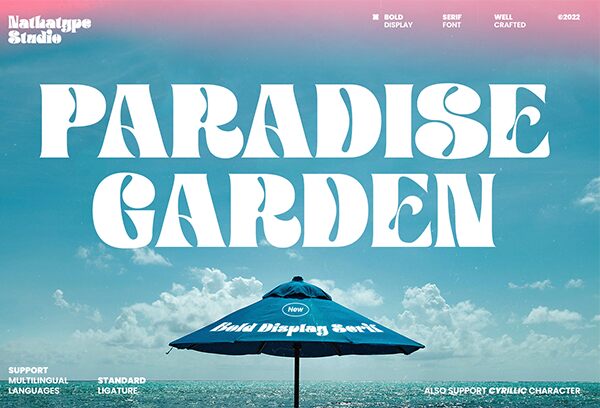
Paradise Garden, designed by Din Studio, is a display font that exudes a groovy vibe with its extra-bold weight. Its curves and swells are reminiscent of retro design trends, yet it carries a modern twist that makes it perfect for contemporary projects. The font's playful loops and whimsical lines evoke the free-spirited essence of the 1960s and 1970s, while its solid structure ensures legibility across various mediums.
Its aesthetic appeal lies in its ability to marry nostalgia with novelty, making Paradise Garden an ideal choice for designers looking to inject personality into branding, advertising campaigns, or editorial work. Whether on a poster or digital graphic, this font is sure to grab attention and leave an impression with its bold style and distinctive flair.